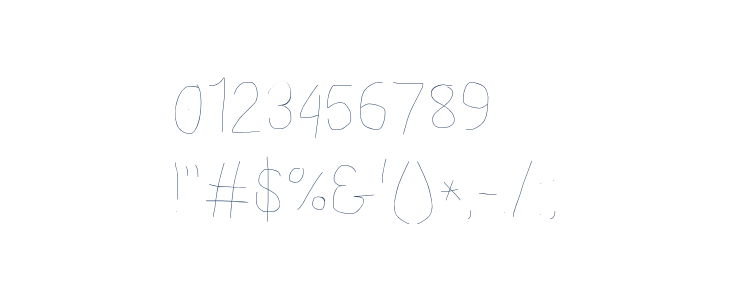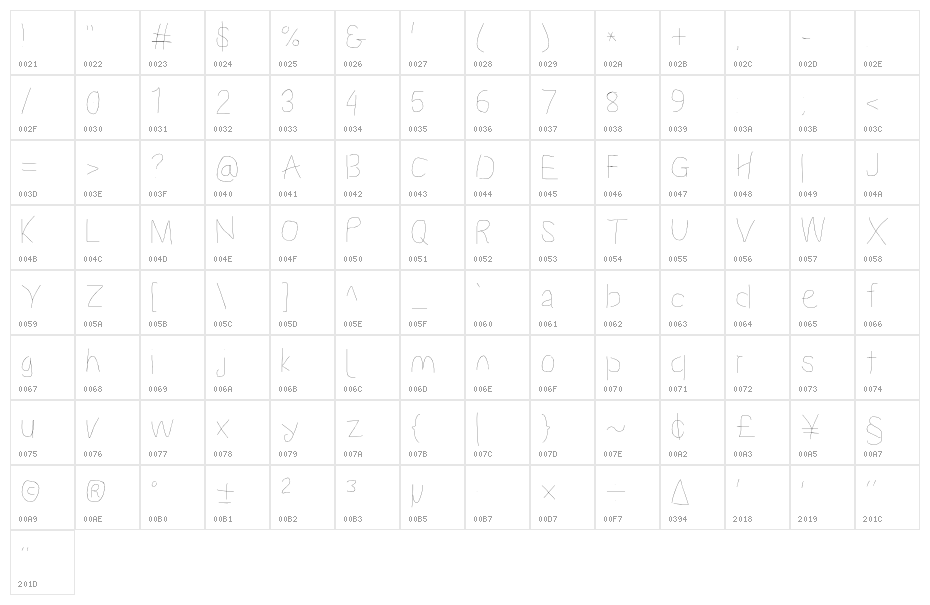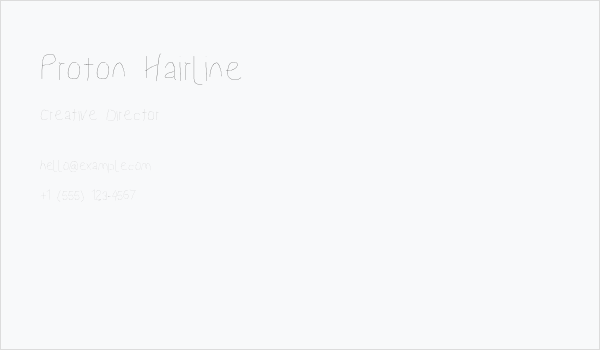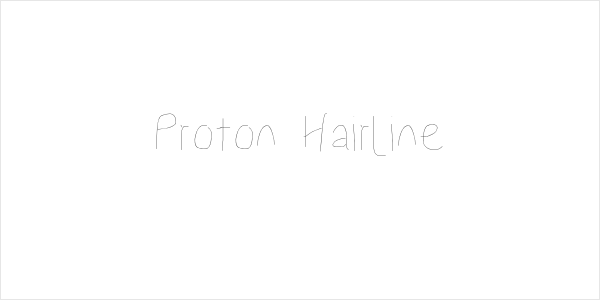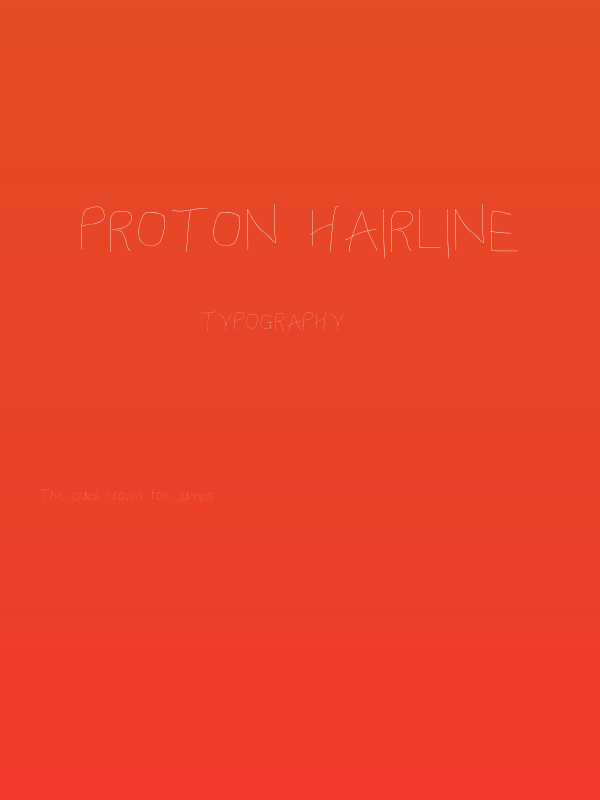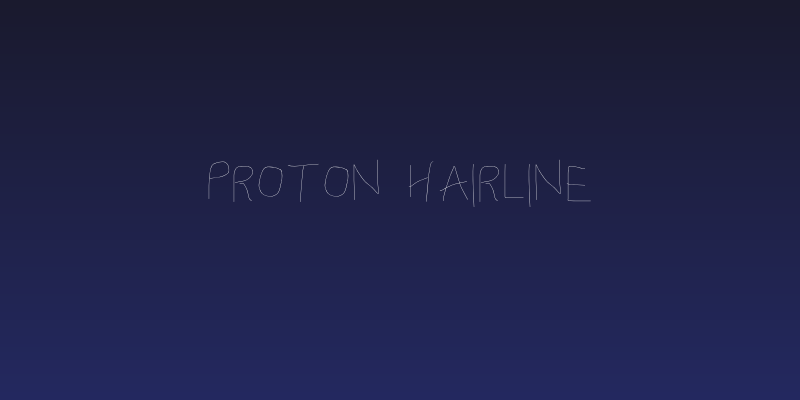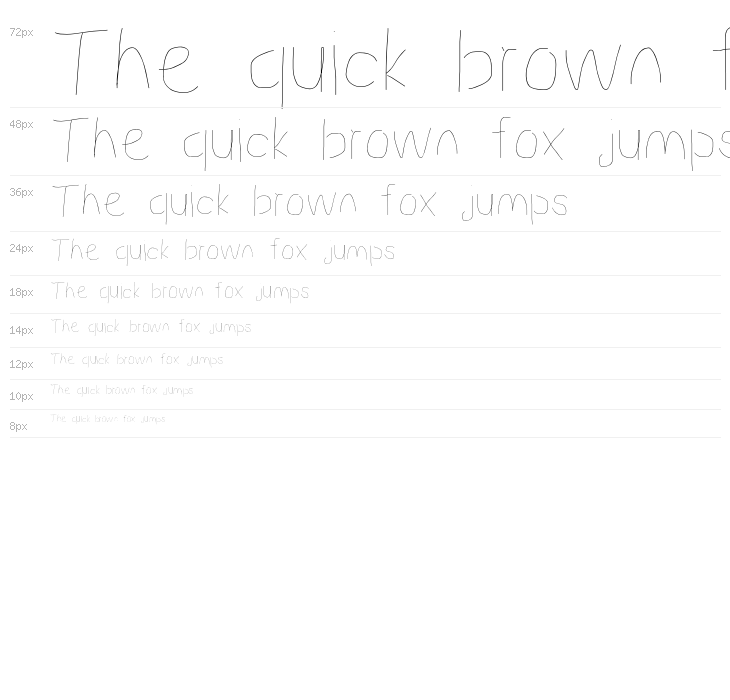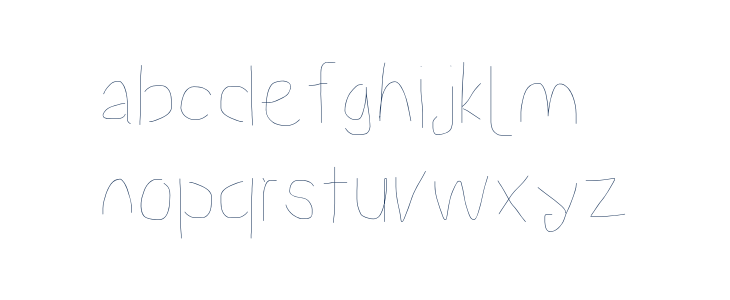
Proton Hairline Font
Proton Hairline Description
This font features an ultra-thin, delicate design with a minimalist aesthetic. The characters are crafted with a consistent, hairline stroke that gives it a very light and airy feel. The uppercase and lowercase letters maintain a uniform height, contributing to a clean and modern look. The numerals and special characters are equally slender, enhancing the overall elegance of the typeface. Its simplicity and clarity make it suitable for projects that require a subtle yet sophisticated touch.